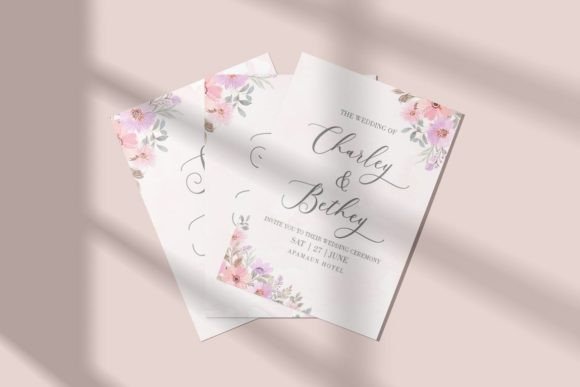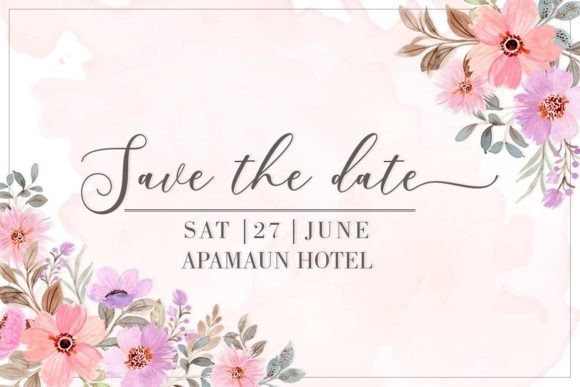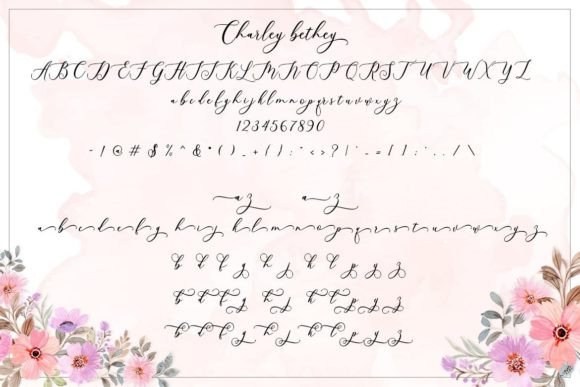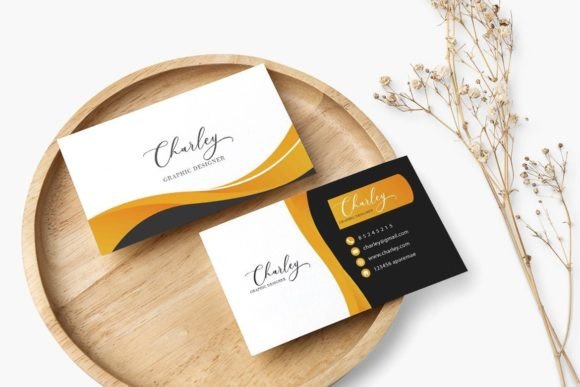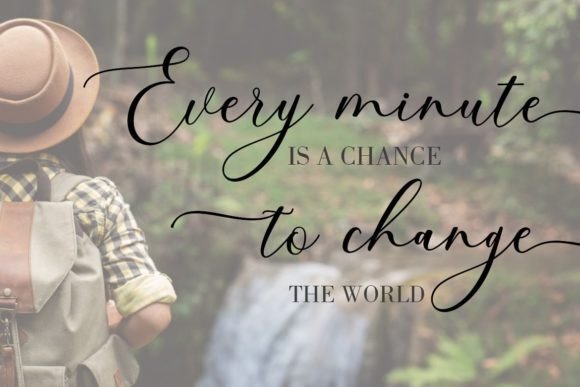
About Charlie Bethey Font
Charlie Bethey is an elegant and charming script font that effortlessly complements anything exquisite and romantic. With its graceful strokes and sophisticated letterforms, this font is designed to add a touch of refinement to your projects, making it a perfect choice for various applications.
The elegance of Charlie Bethey makes it suitable for a wide range of design projects, especially those that require a romantic or upscale aesthetic. Whether you’re working on wedding invitations, branding materials, romantic quotes, or any other creative endeavor that demands a touch of charm, Charlie Bethey is crafted to enhance the visual appeal.
The script style of Charlie Bethey brings a sense of fluidity and grace to each letter, creating a seamless and harmonious flow. Imagine this font adorning a wedding invitation, where its charming and elegant script sets the perfect tone for a romantic celebration. Picture it enhancing a branding project, adding a touch of sophistication and charm to the overall identity.
One notable feature of Charlie Bethey is its PUA encoding, allowing easy access to a range of glyphs and swashes. This feature enhances your creative freedom, making it convenient to add decorative elements and customize your designs with ease. Whether you’re a seasoned designer or someone exploring the world of creative expression, Charlie Bethey invites you to experiment with its elegant elements.
Embrace the charm and elegance of Charlie Bethey, and let it be the font that adds a touch of sophistication to your exquisite and romantic projects. Explore the collection of glyphs and swashes, unlocking the full potential of this font with the convenience of PUA encoding. Whether you’re working on formal invitations or seeking to infuse a romantic vibe into your creative works, Charlie Bethey stands ready as the elegant and charming script font for your next design venture.